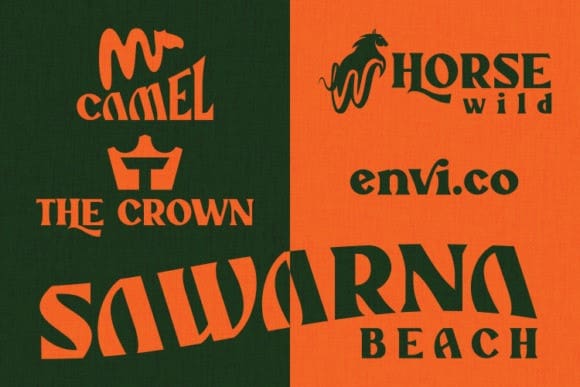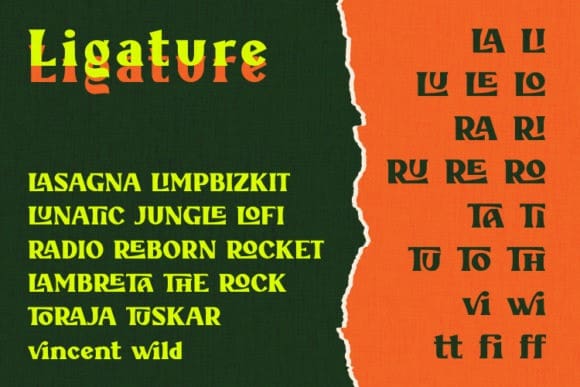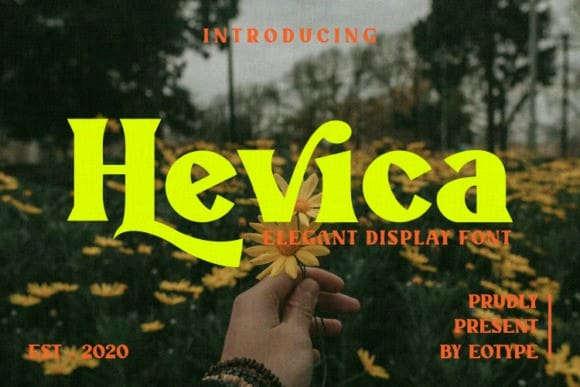
Hevica Font
Hevica Font is a bold and classic serif font. Create unique wordmark logo, beautiful wedding invitations, use it as an elegant solution for your next magazine layout, or choose Hevica for any graphics that require a sleek look with a elegant flair.